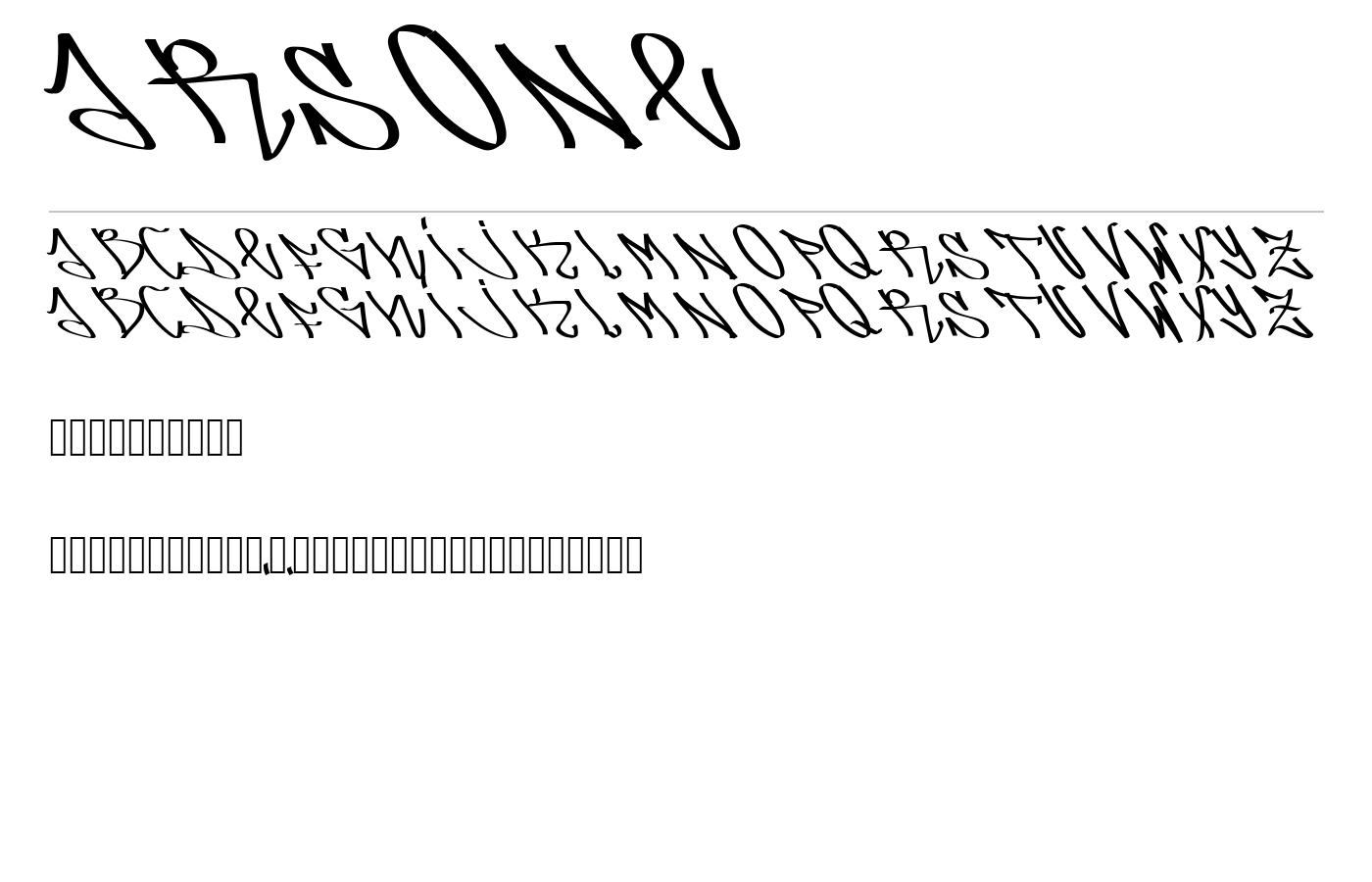
The Arsone font is a highly stylized, hand-drawn script with a playful and artistic character. Its irregular strokes and unique letter forms create a dynamic, informal feel that works well for creative projects and casual branding. This font is ideal for eye-catching headlines, logos, and designs seeking an expressive, personal touch with a modern edge.